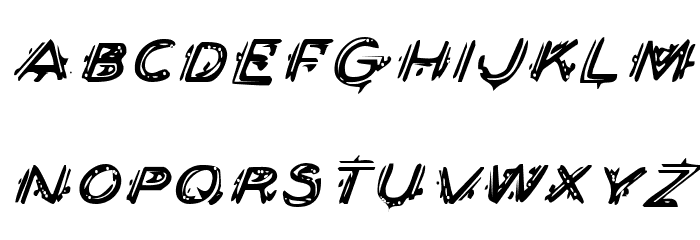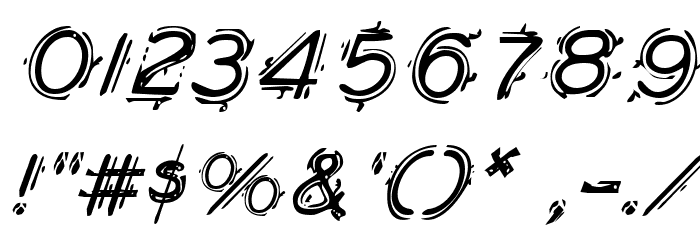
Berserker Italic Font
This font features a dynamic and aggressive style, characterized by sharp, angular strokes and a distressed, grunge-like appearance. The letters are italicized, giving a sense of motion and urgency. The uppercase and lowercase characters maintain a consistent design, with jagged edges and a bold presence. The numerals and special characters follow the same aesthetic, ensuring a cohesive look across all text elements. This font's unique style makes it stand out, perfect for projects that require a bold and edgy statement.
A bold, italicized font with a distressed, grunge-like style.
- Font: Berserker Italic
- Proposed Projects: Ideal for music album covers, edgy posters, video game titles, and branding that requires a rebellious or intense look.
- Overall Style: Modern, Decorative